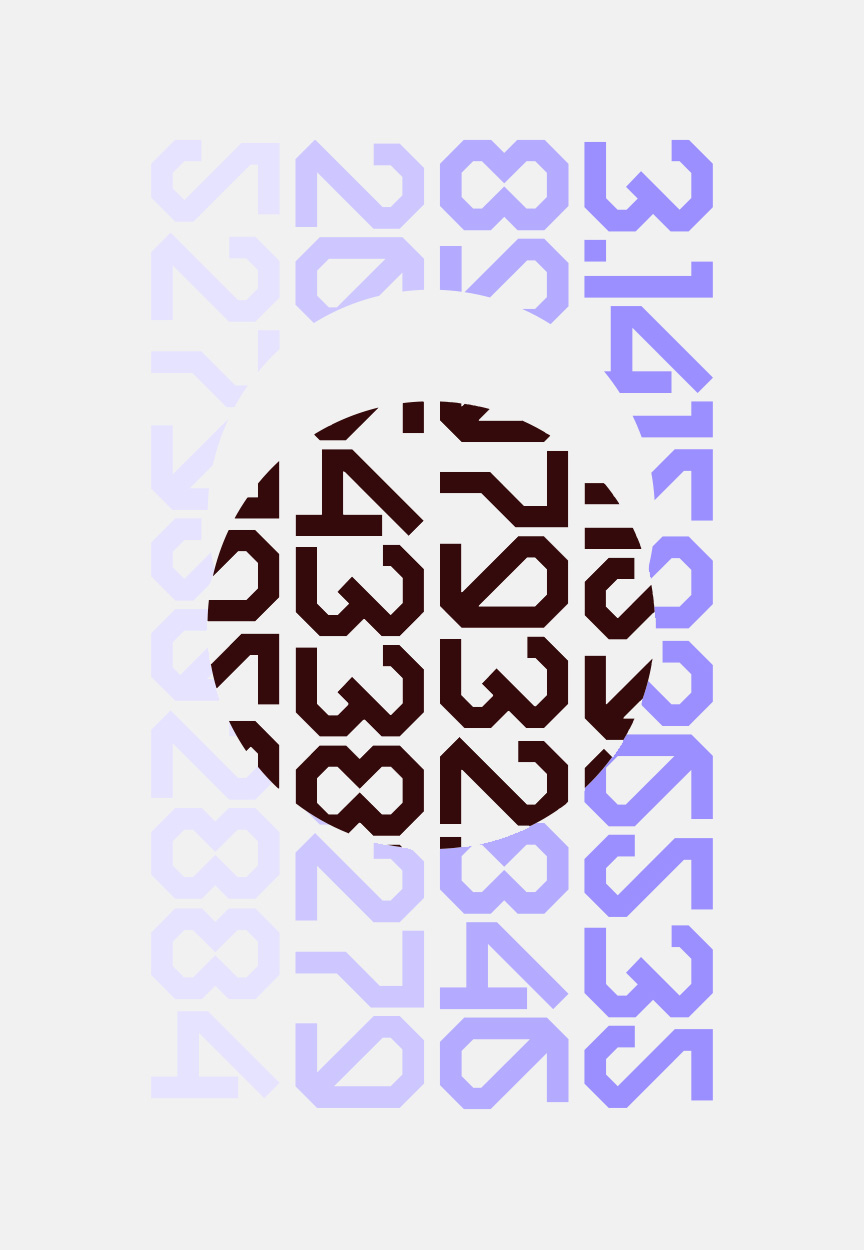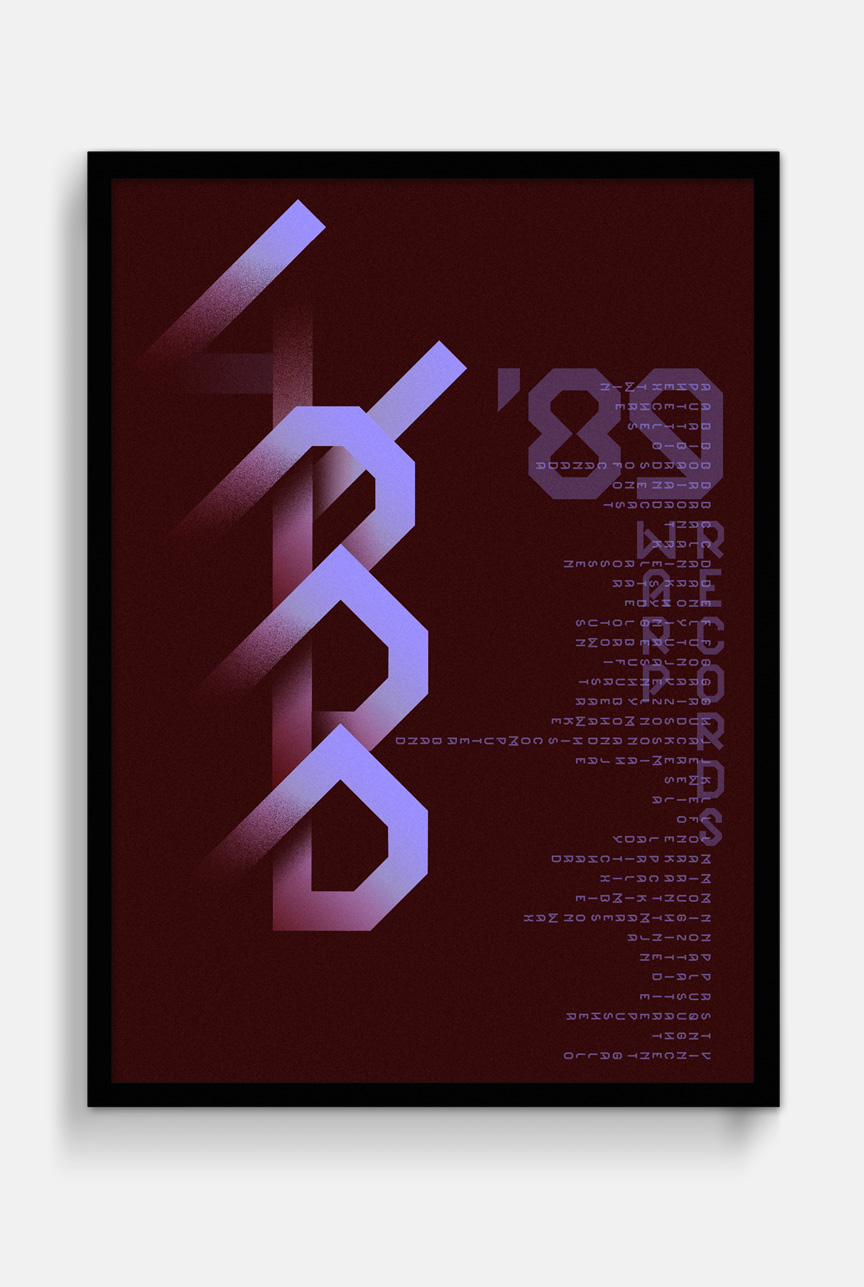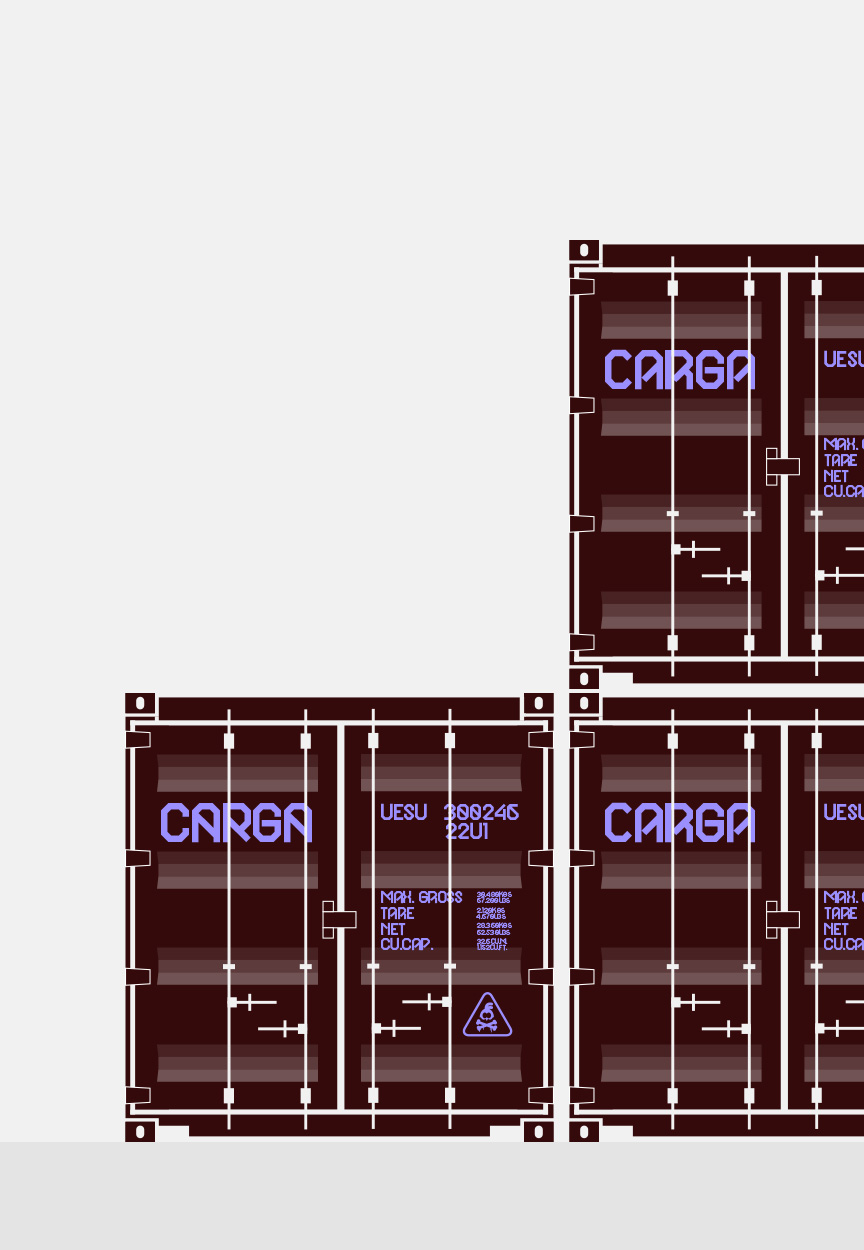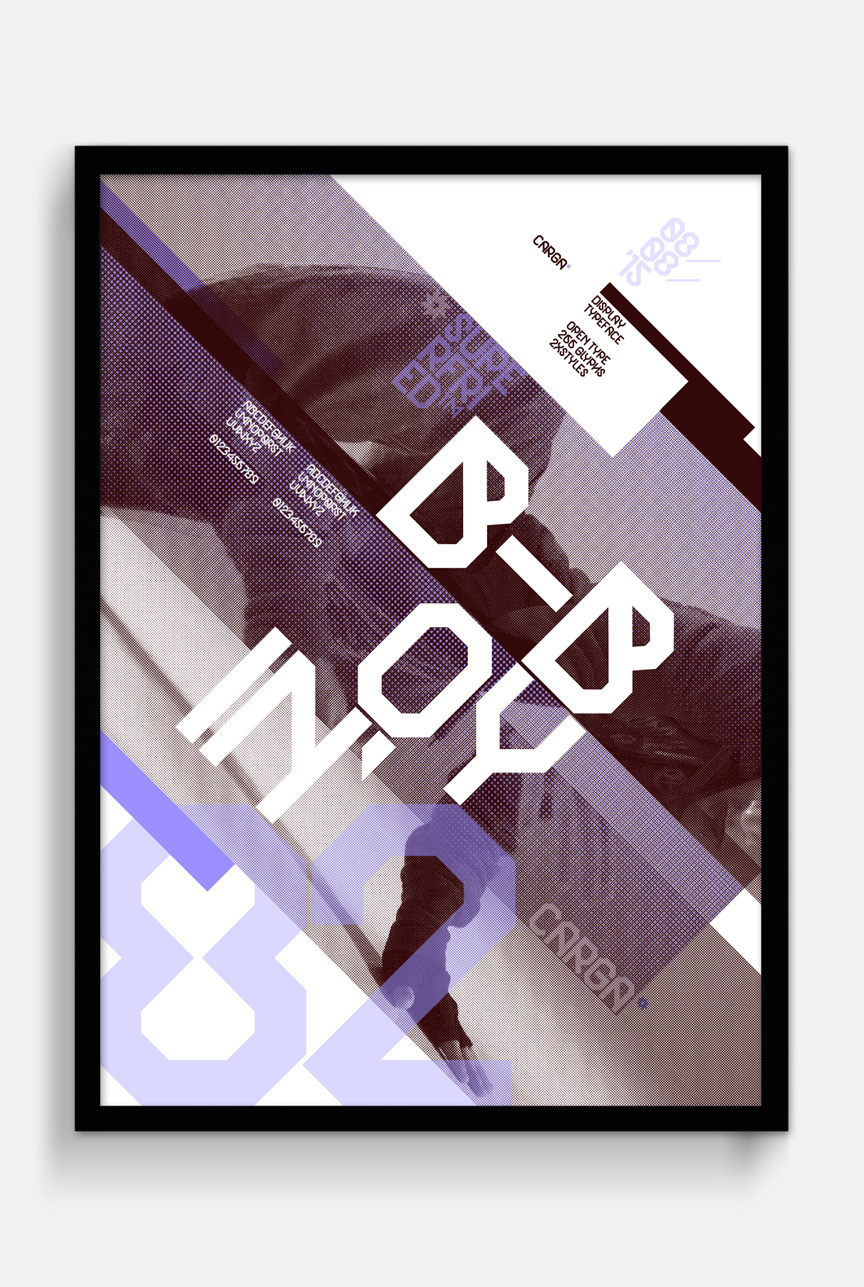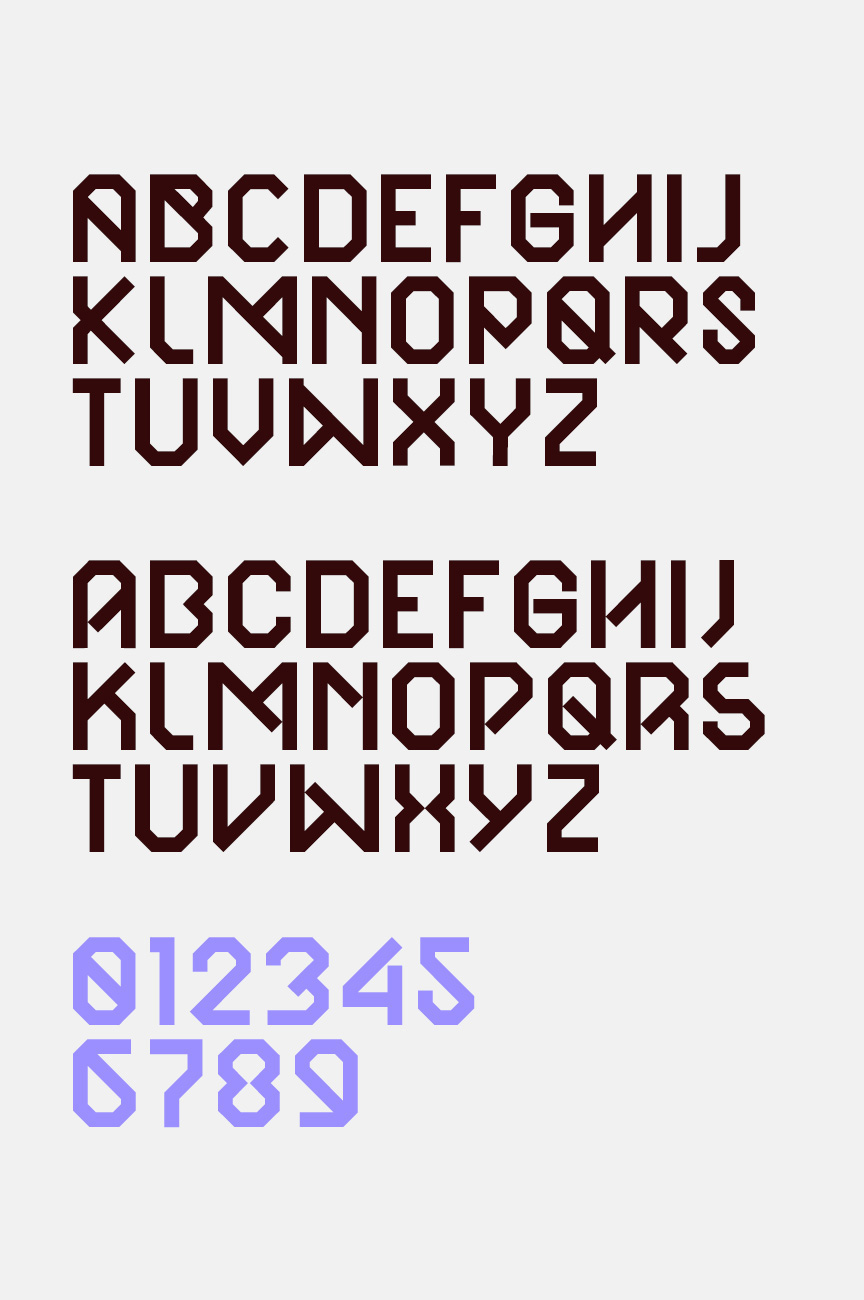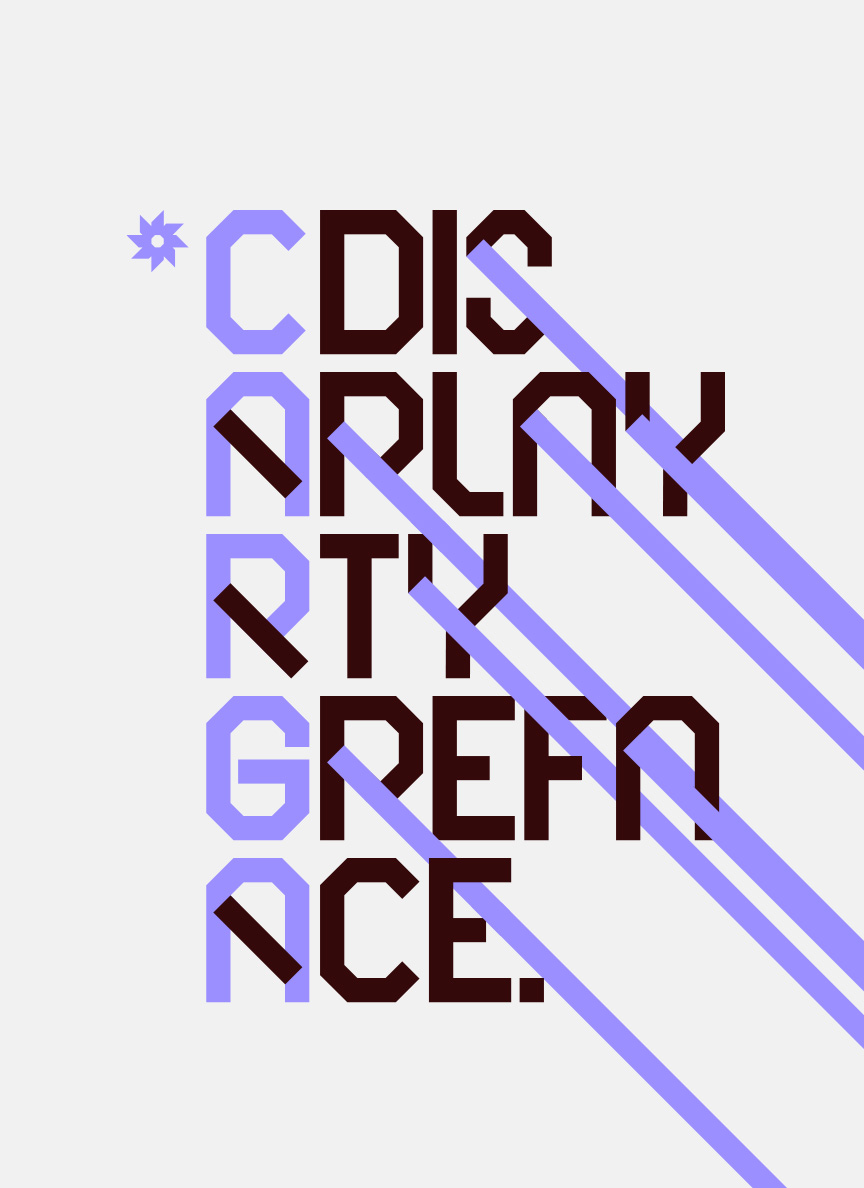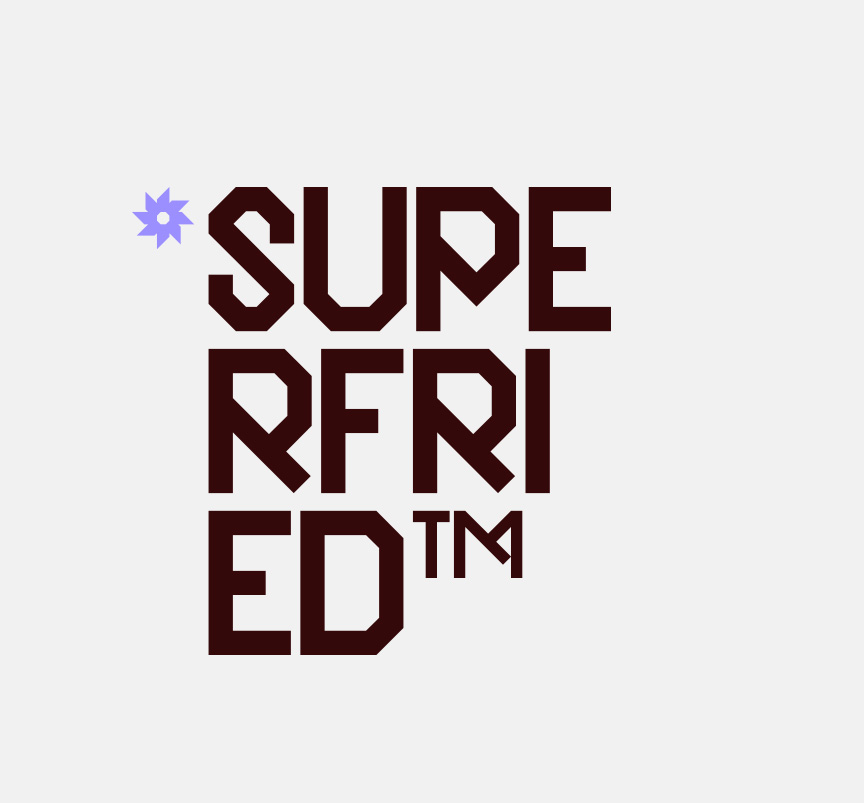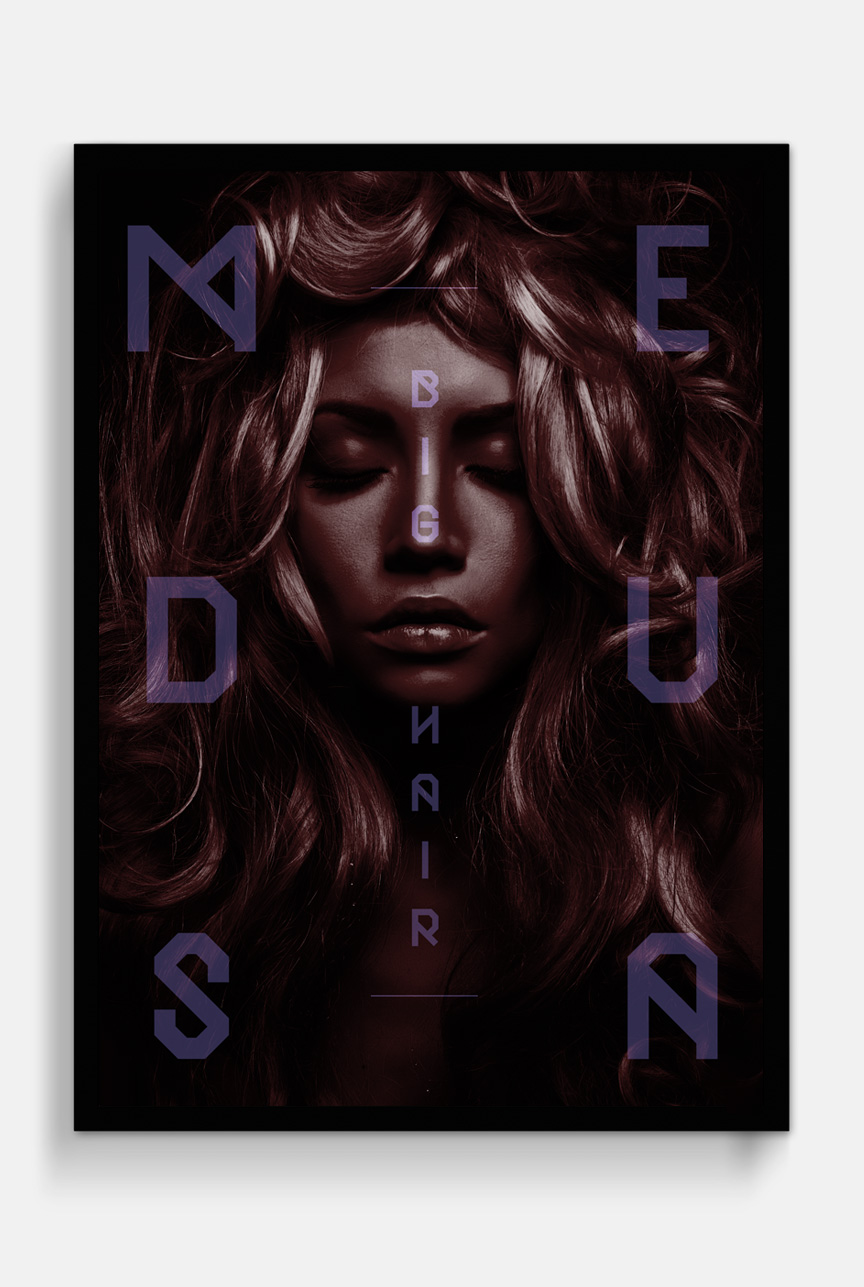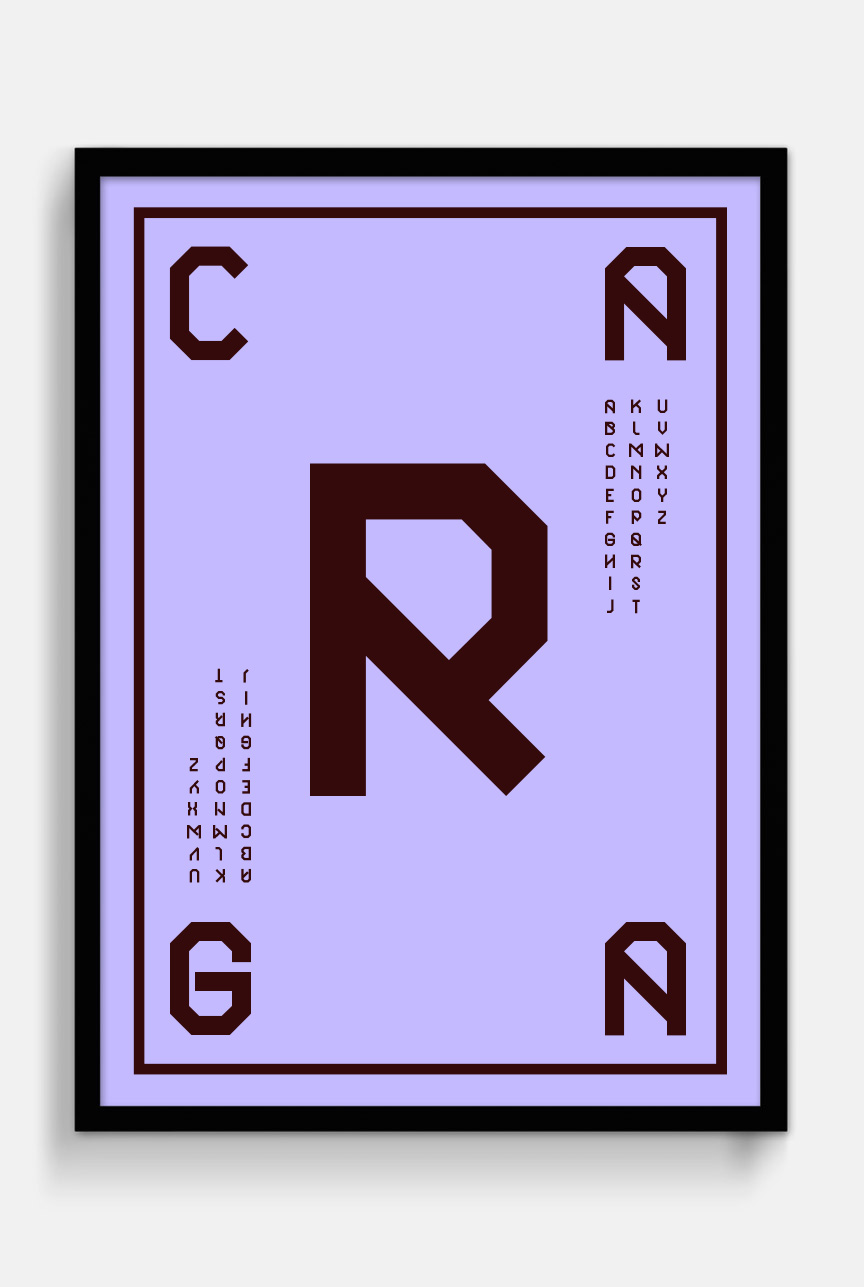
Display typeface by Superfried
Carga by Superfried is an angular, brutal, uppercase display typeface. Initially inspired by the use of typography upon container ships, this font is aptly named Carga – Spanish for Cargo. Carga has been featured on Netdiver magazine , includes 266 glyphs and features two interchangeable character styles switched via shift.
Carga – Display typeface by Superfried